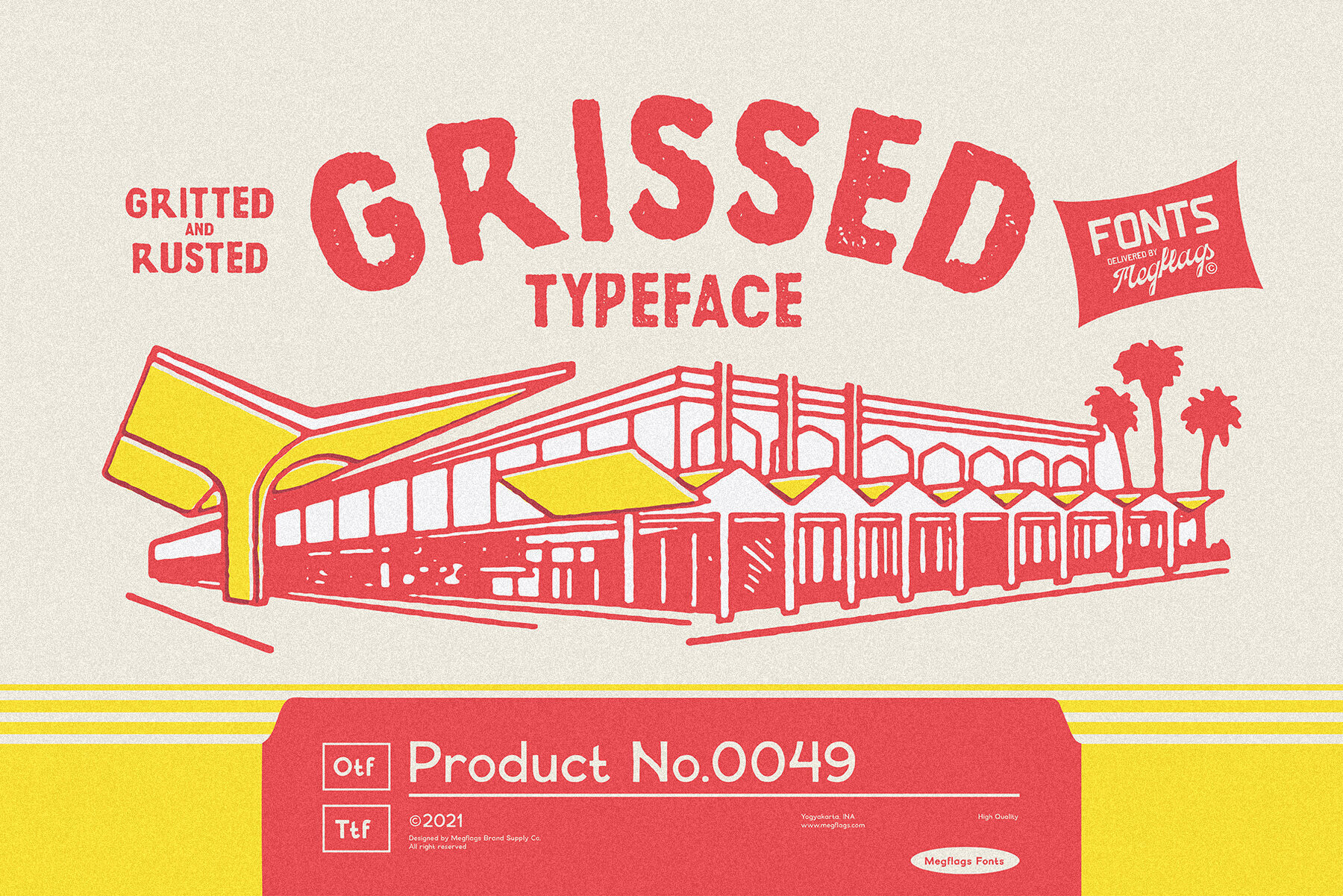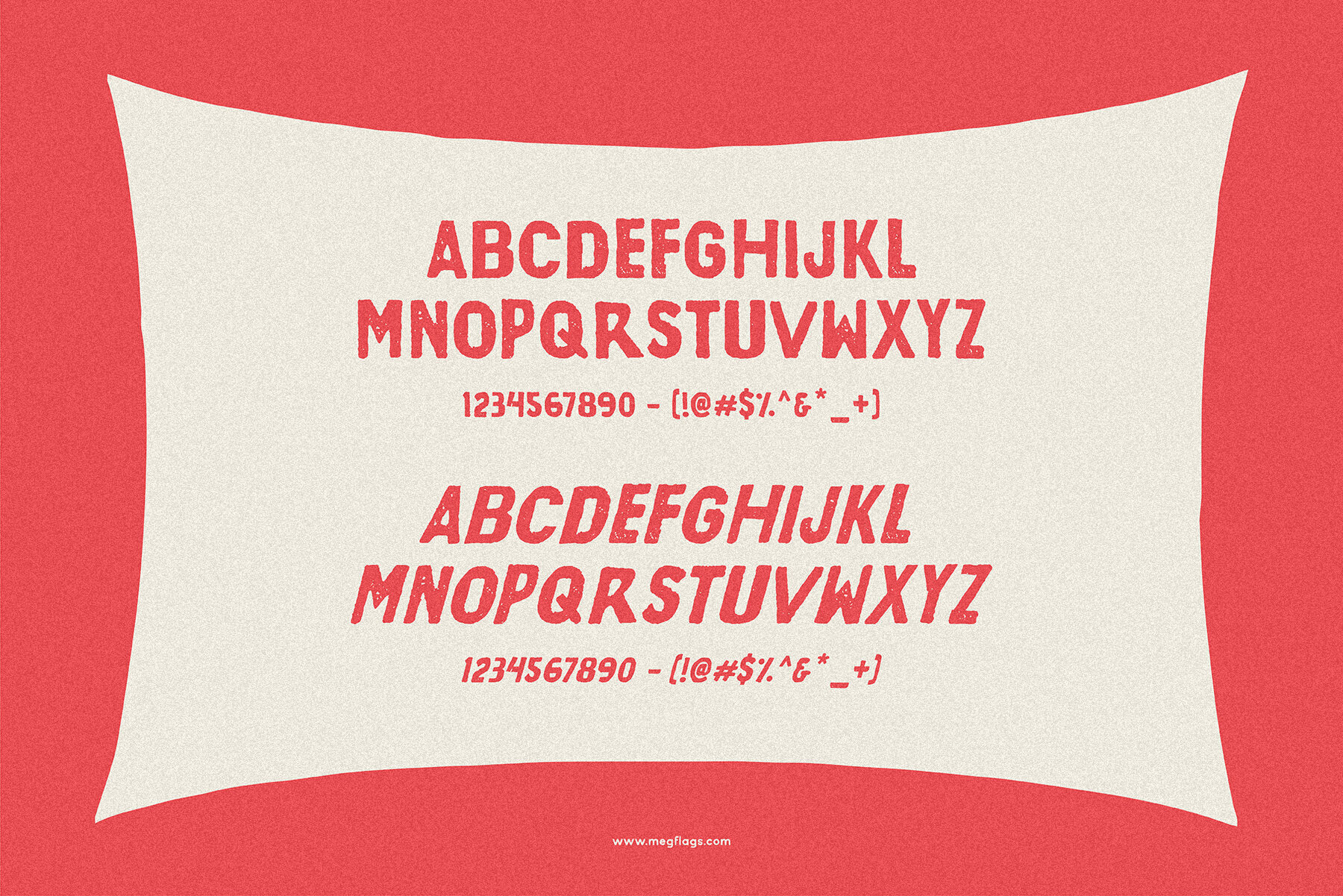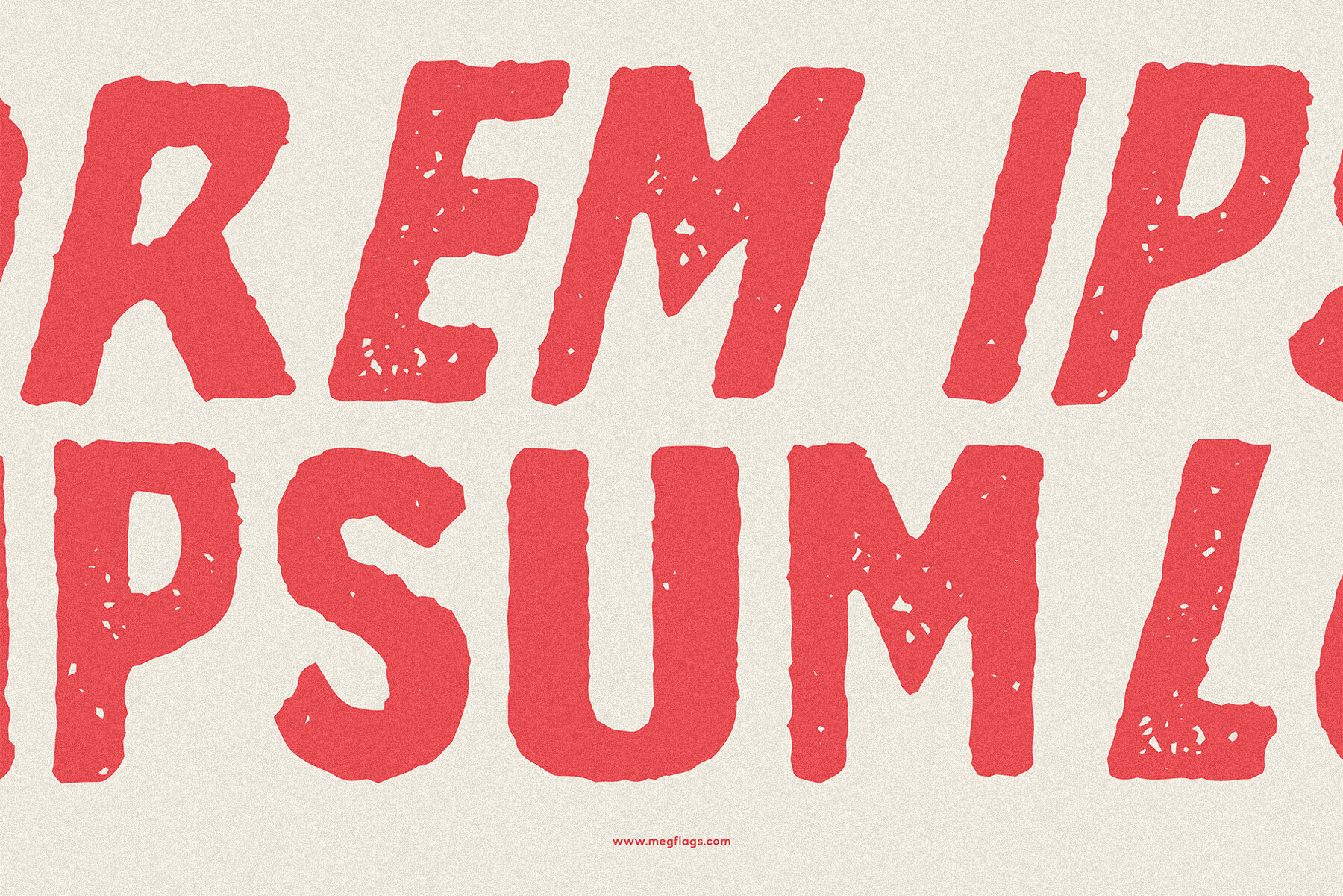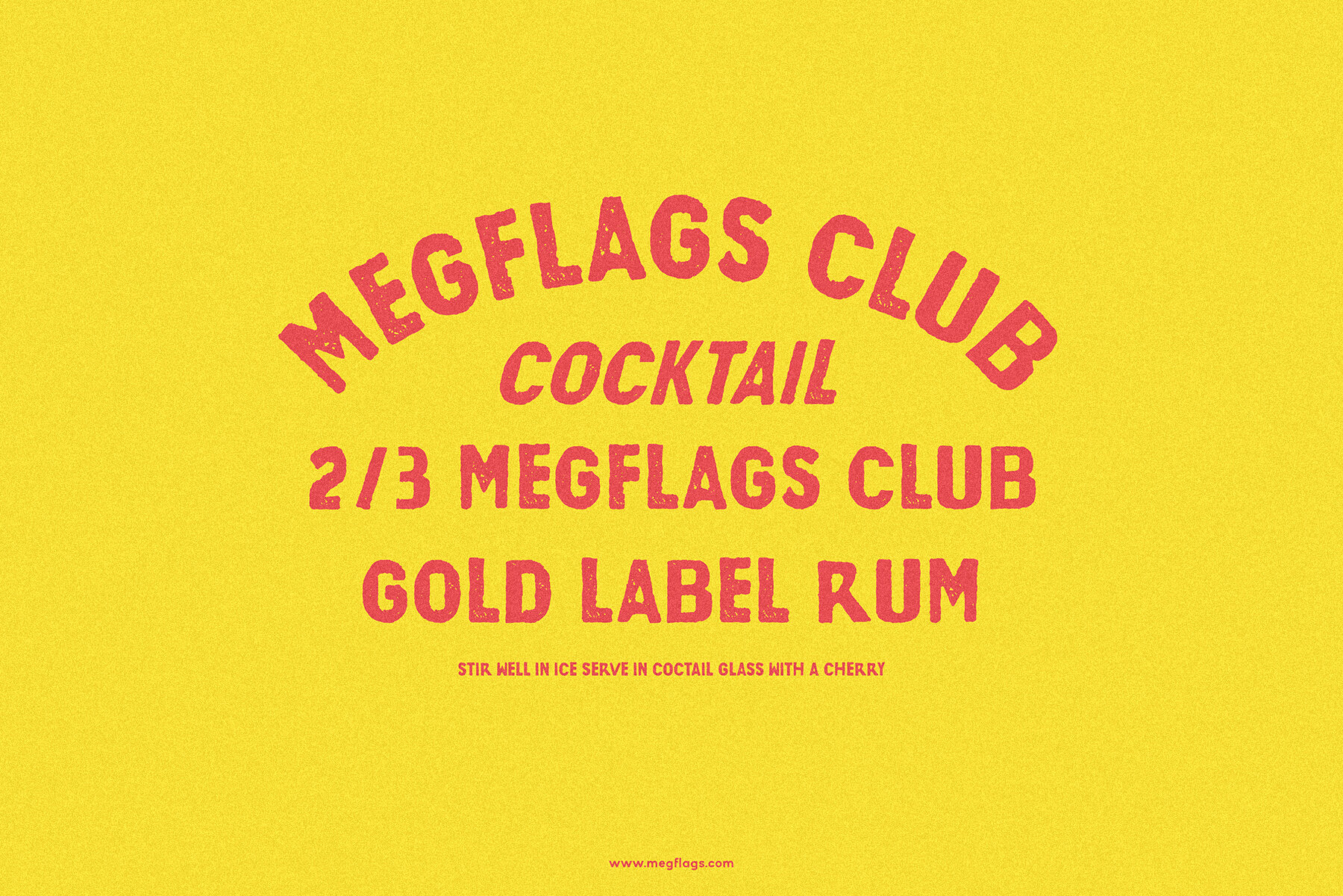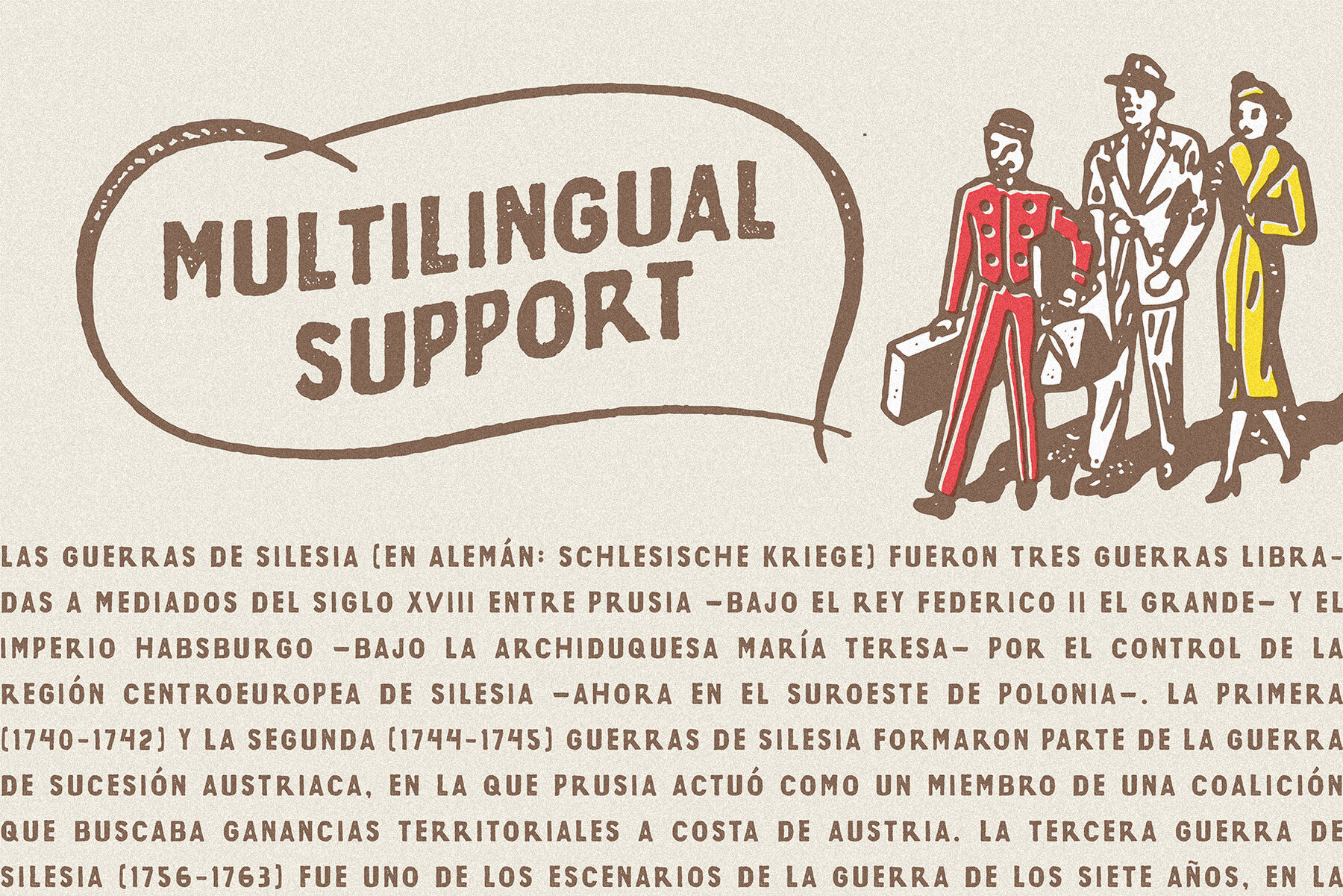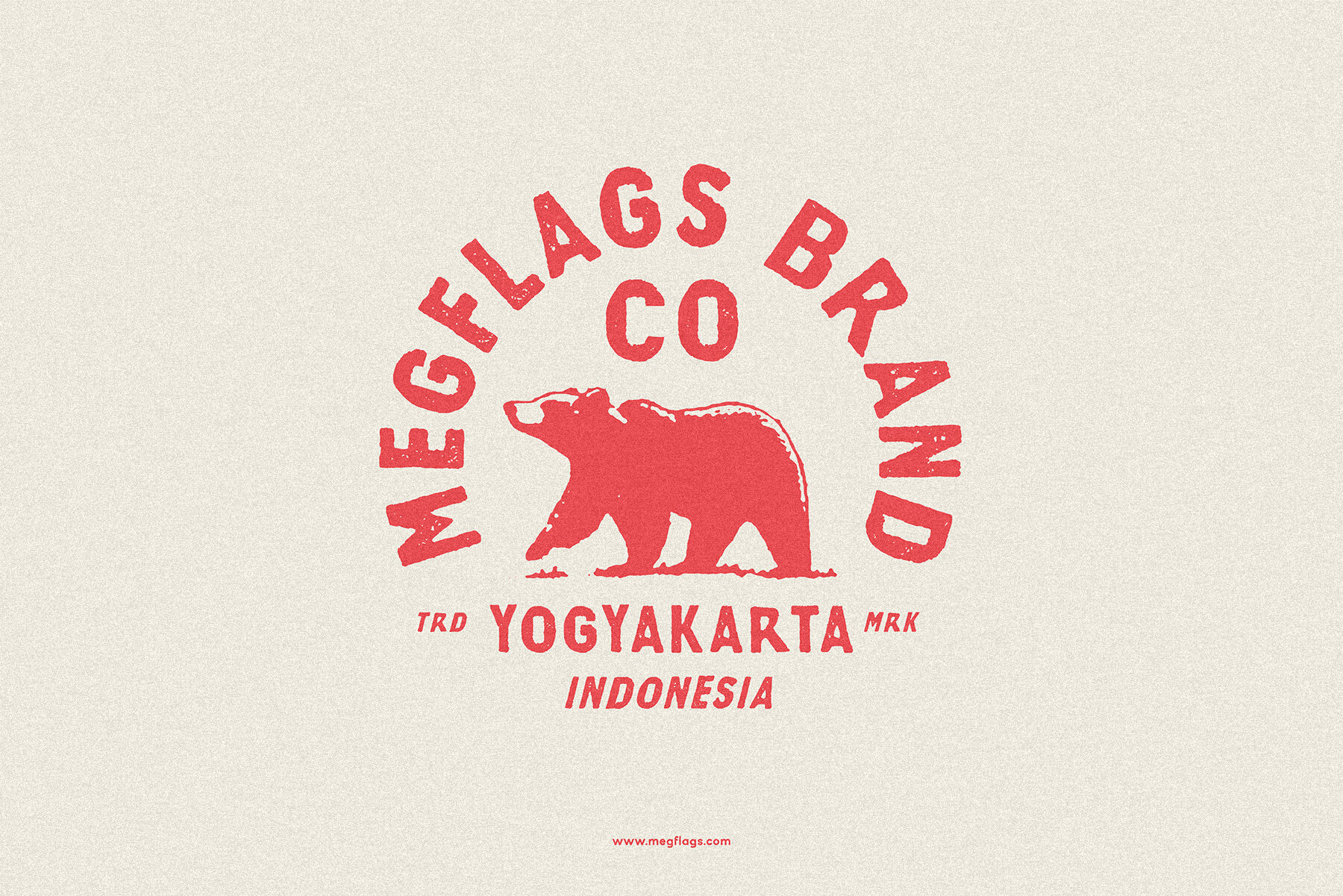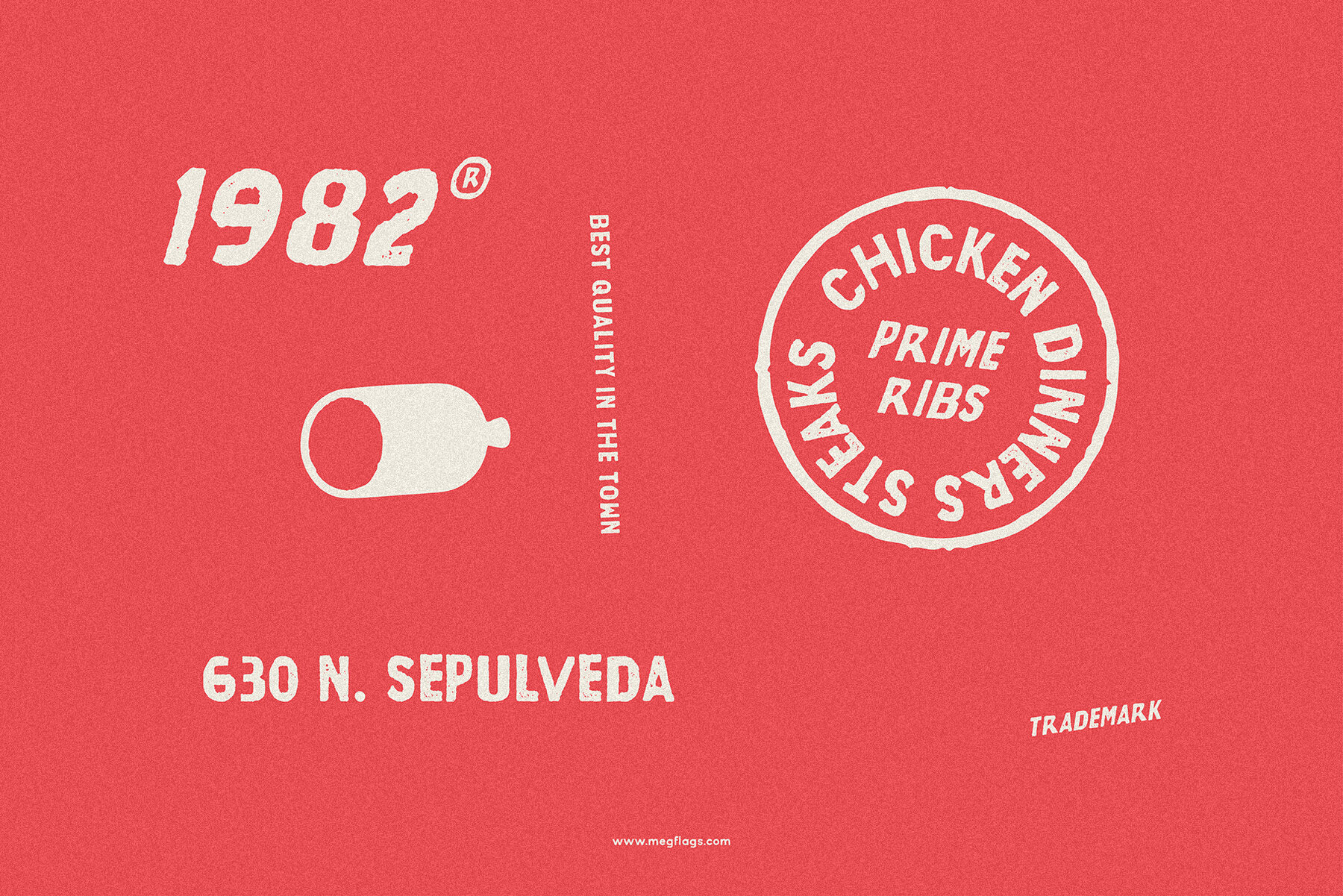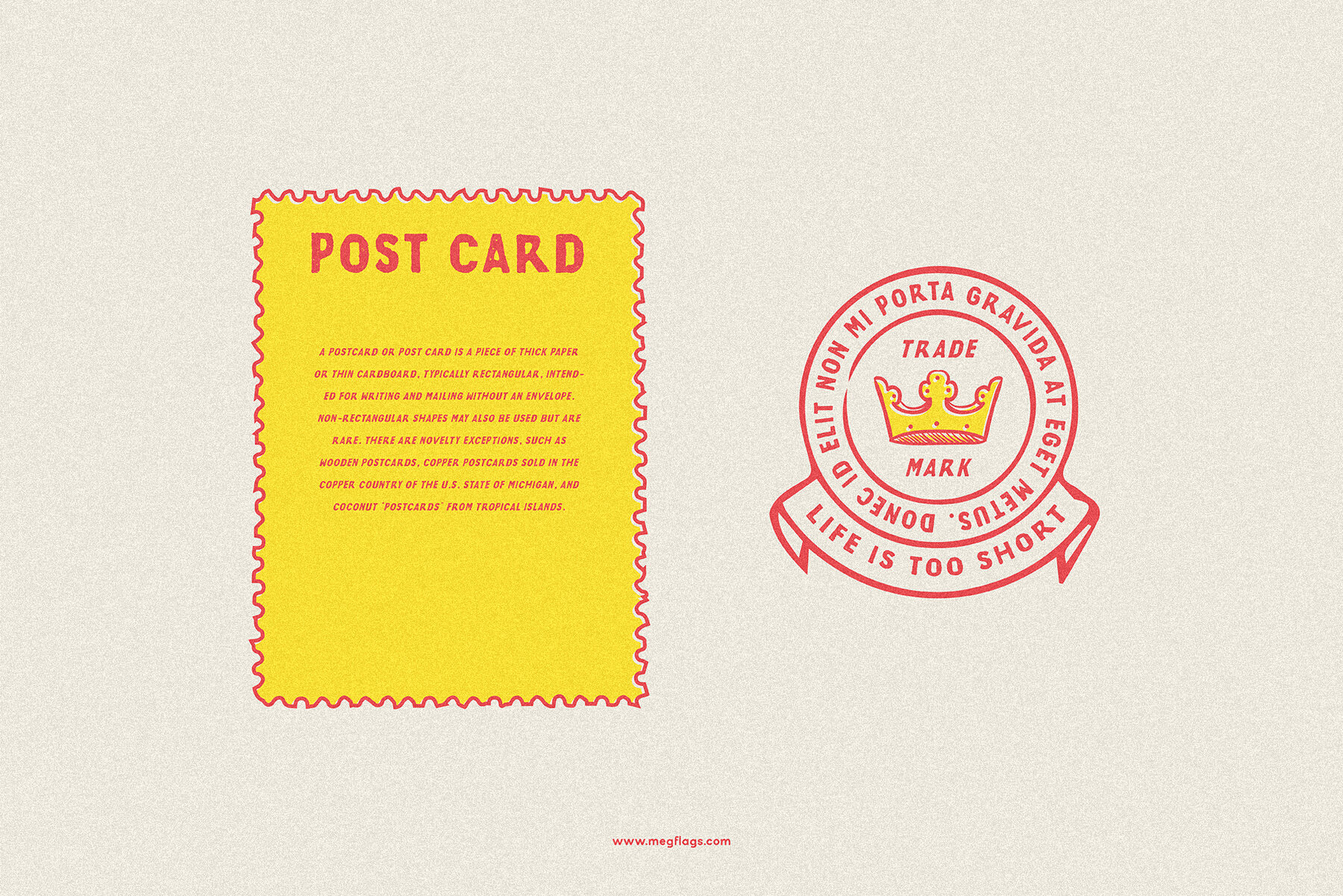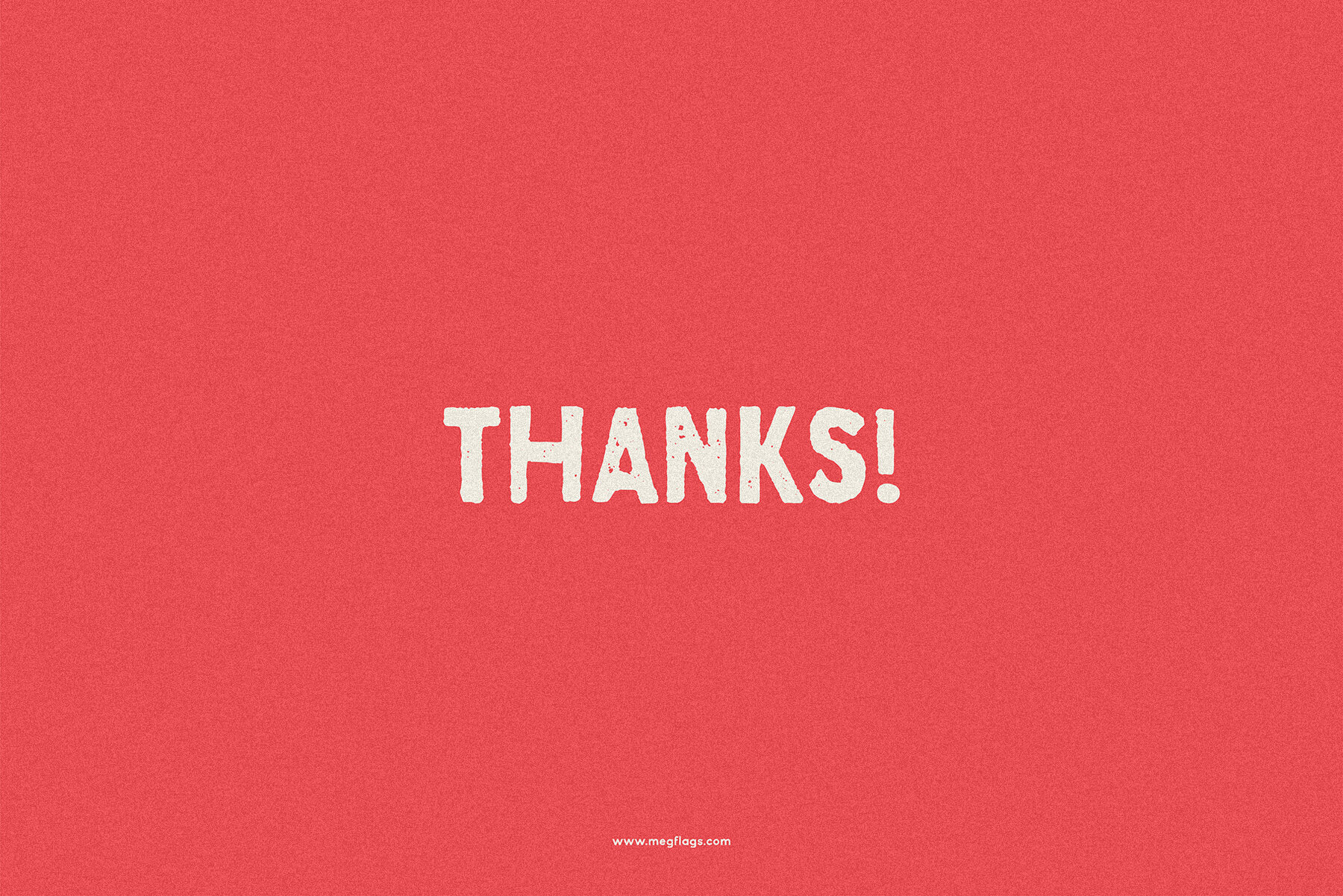
Grissed 1
Inspired by vintage paper and storefront signage, this hand-drawn font brings a nostalgic touch to your design projects. Its unique lines capture a retro aesthetic that is perfect for logos, branding, packaging, posters, banners, and stationery. Designed with care, each character carries a distinct personality that echoes the charm of yesteryears, making it ideal for creating memorable visual identities.
This versatile font is also an excellent choice for apparel and merchandise. Whether you're designing t-shirts or other custom items, the detailed craftsmanship of this font will ensure your creations stand out. Its retro flair adds a distinct touch, enriching your designs with a classic yet fresh vibe. Perfect for designers aiming to infuse vintage elegance into modern projects.